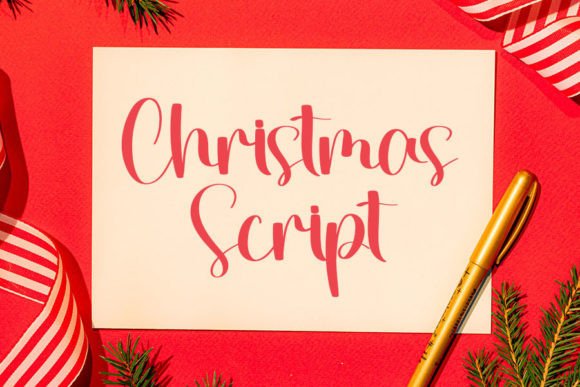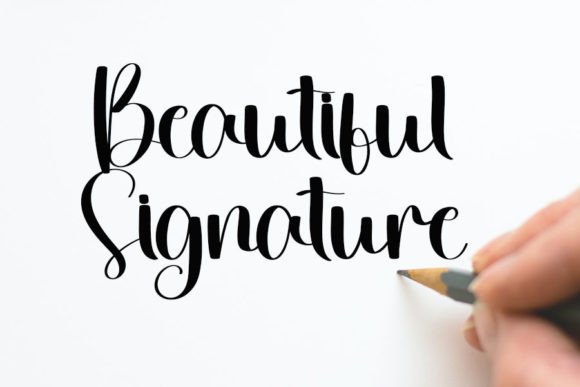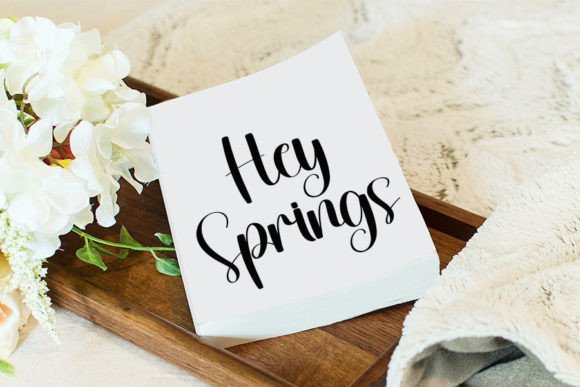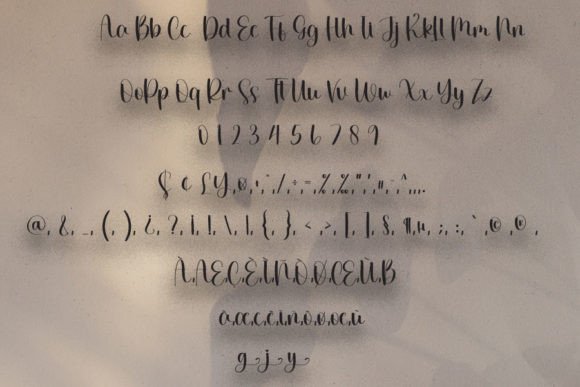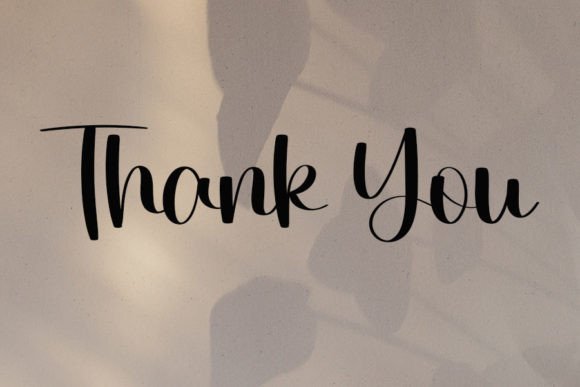
Introduction to Runny Font
Do you remember that moment when you’re working on a creative project, and you just can’t seem to find the right font to bring it all together? Maybe you’re designing a greeting card for a loved one, or crafting a presentation for a big meeting. Whatever it is, you want a font that’s not only visually appealing but also easy to work with.
| 👤 Author | Harlek studio |
Enter Runny Font, a simple and friendly handwritten font that’s sure to become your go-to design resource. With its high quality and versatility, this font is perfect for a wide range of creative projects, from digital design to crafts and everything in between.
Key Features of Runny Font
- High-quality, free downloadable font ideal for creative projects.
- Unique, artistic design with a transparent background for versatile use.
- Large character set, including uppercase and lowercase letters, numbers, and special characters.
Honest Review: Runny Font
I recently had the chance to work with the Runny Font, and I must say it’s a decent addition to any designer’s toolkit. The first thing that caught my attention was the free download option, which makes it a great resource for designers working on a budget or those who just want to experiment with new fonts.
✨ One of the things that works well with Runny Font is its high quality design. The font is crisp and clear, making it perfect for any creative project that requires a clean and modern look. I particularly liked using it for a brochure design project where I needed a font that could easily stand out against a transparent background.
Another advantage of Runny Font is its versatility. It comes in a range of weights and styles, making it easy to use for various design purposes. Whether you’re working on a logo design, business card, or website, Runny Font can be a great choice.
⚠️ However, I did encounter some limitations while working with Runny Font. The font doesn’t support as many languages as I would have liked, which can be a problem for designers working on international projects. Additionally, the font can look a bit generic in certain contexts, which may not be ideal for designers who want a truly unique look.
Overall, I would say that Runny Font is a solid design resource that can be useful for designers working on various creative projects. While it may have some limitations, it’s definitely worth considering for designers who want a high-quality font at a low cost.
Pros:
- Good for transparent background designs
- Range of weights and styles
Cons:
- Limited language support
- Can look generic in certain contexts
Runny Font is a high-quality, free download design resource perfect for creative projects. It features a unique, eye-catching style that’s ideal for making your work stand out.
Tips for Getting the Most Out of Runny Font
Use Runny Font on a transparent background to create a stunning visual effect.
Pair Runny Font with other design elements to create a cohesive and engaging design.
Runny Font is perfect for social media graphics, marketing materials, and other creative projects where you want to make a bold statement.
It’s also great for creating eye-catching headings and titles in your designs.